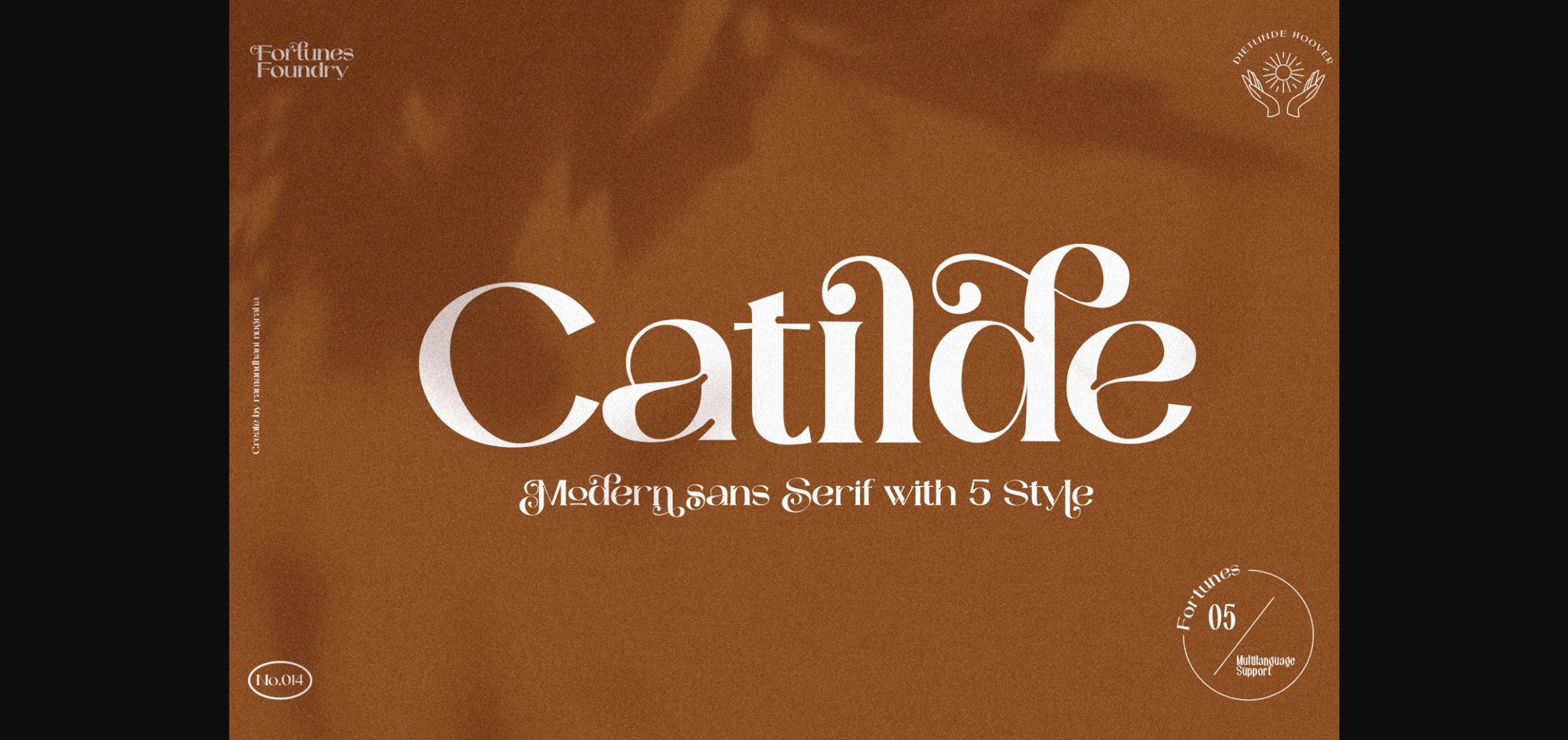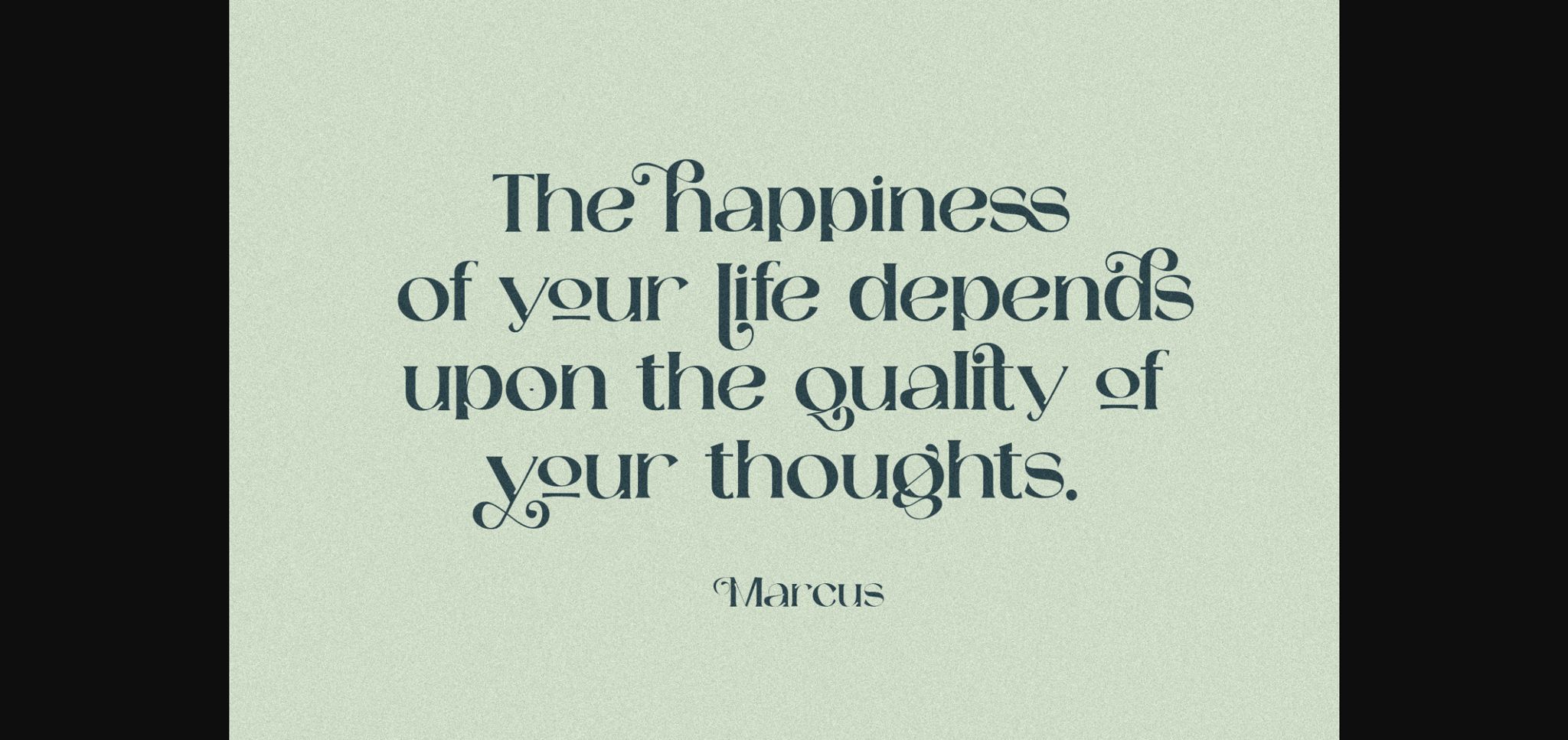
About Catilde Font
Catilde is a modern and incredibly elegant sans serif font. Fall in love with its incredibly versatile style and use it to create gorgeous wedding invitations, beautiful stationary art, eye-catching social media posts, and much more!